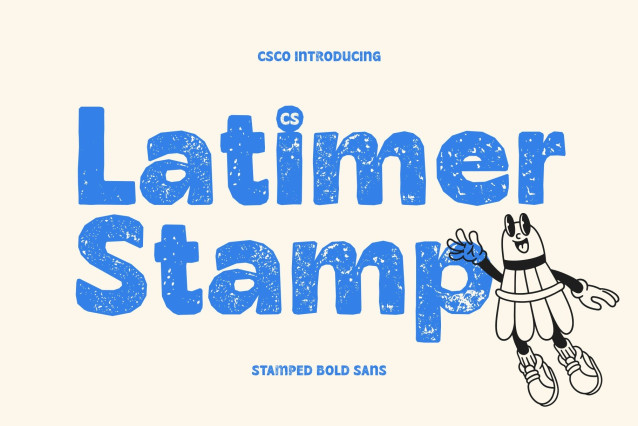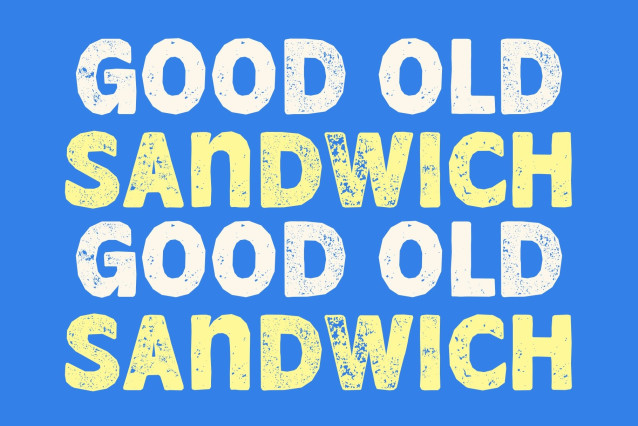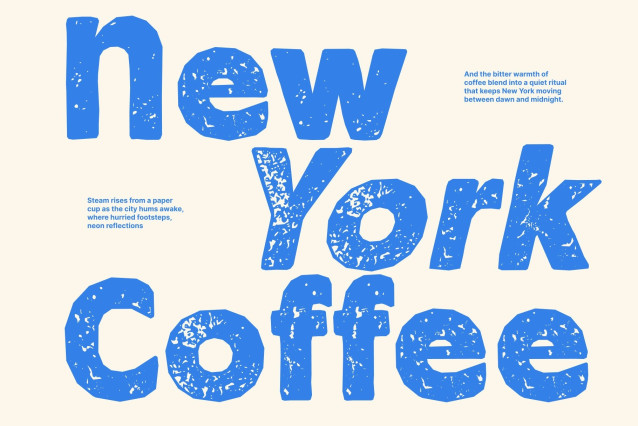
CS Latimer Stamp Font
CS Latimer Stamp – Retro Font: A Bold Fusion of Vintage and Modern Style
Classic Sans Serif with Stamp Texture
This is a bold and dynamic sans-serif font that blends vintage energy with a modern edge. Enhanced with a stamp effect, the letterforms gain subtle distress, textured edges, and an organic inked finish, creating a perfect balance between retro charm and contemporary clarity.
Bold Letterforms with Playful Character
Featuring thick strokes and confident shapes, this font stands out effortlessly in any composition. The slightly rounded edges and fluid structure add warmth and personality, while the stamped texture introduces a handcrafted feel that enhances its nostalgic appeal.